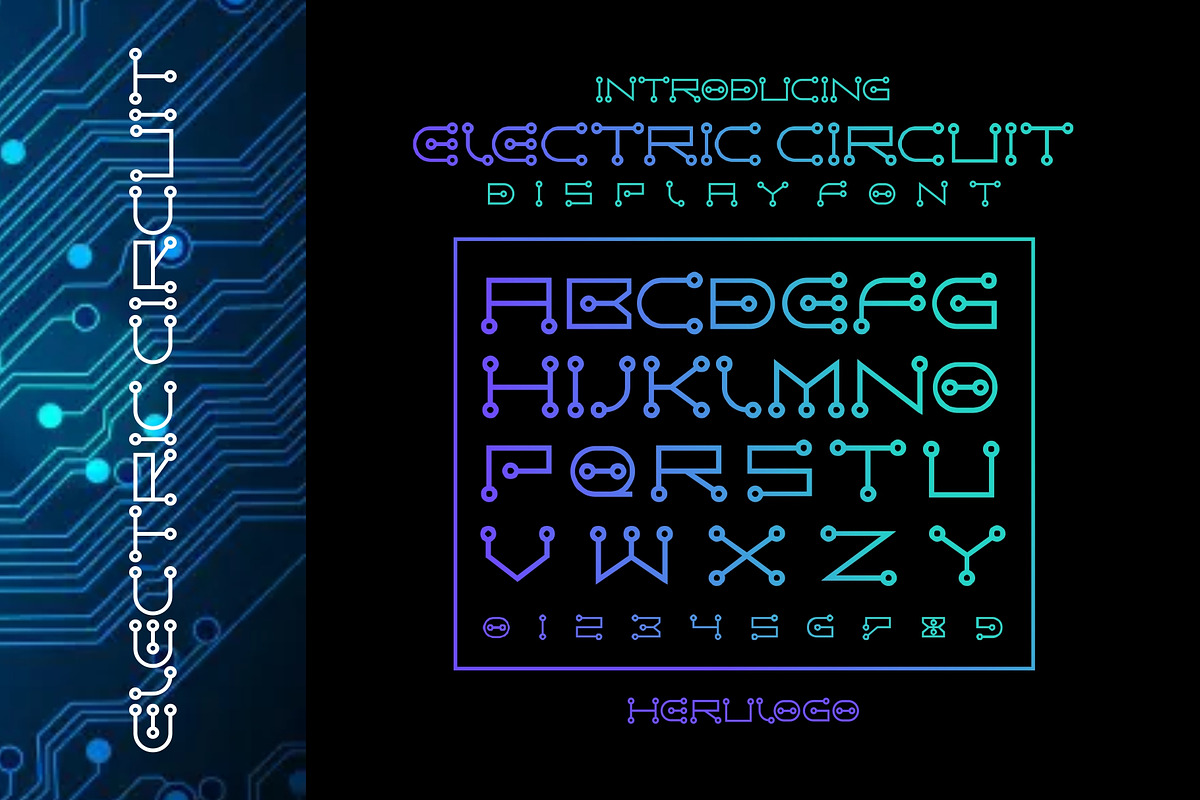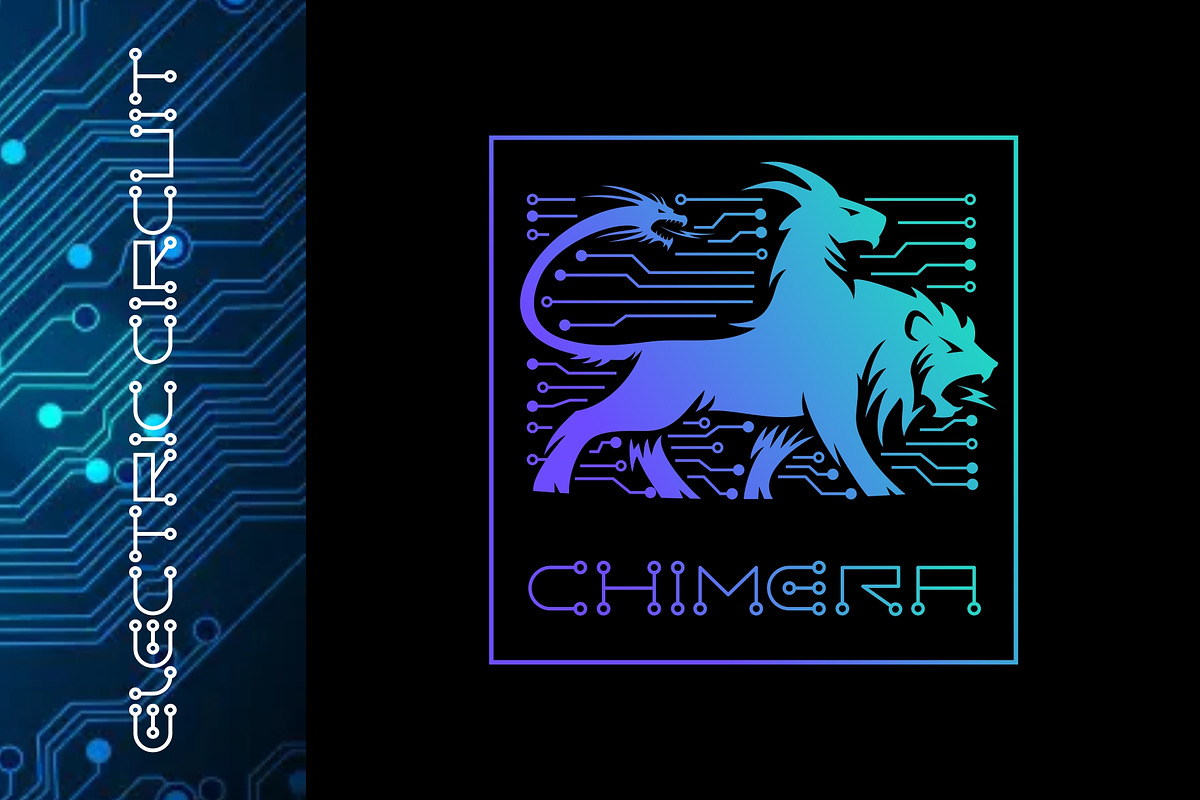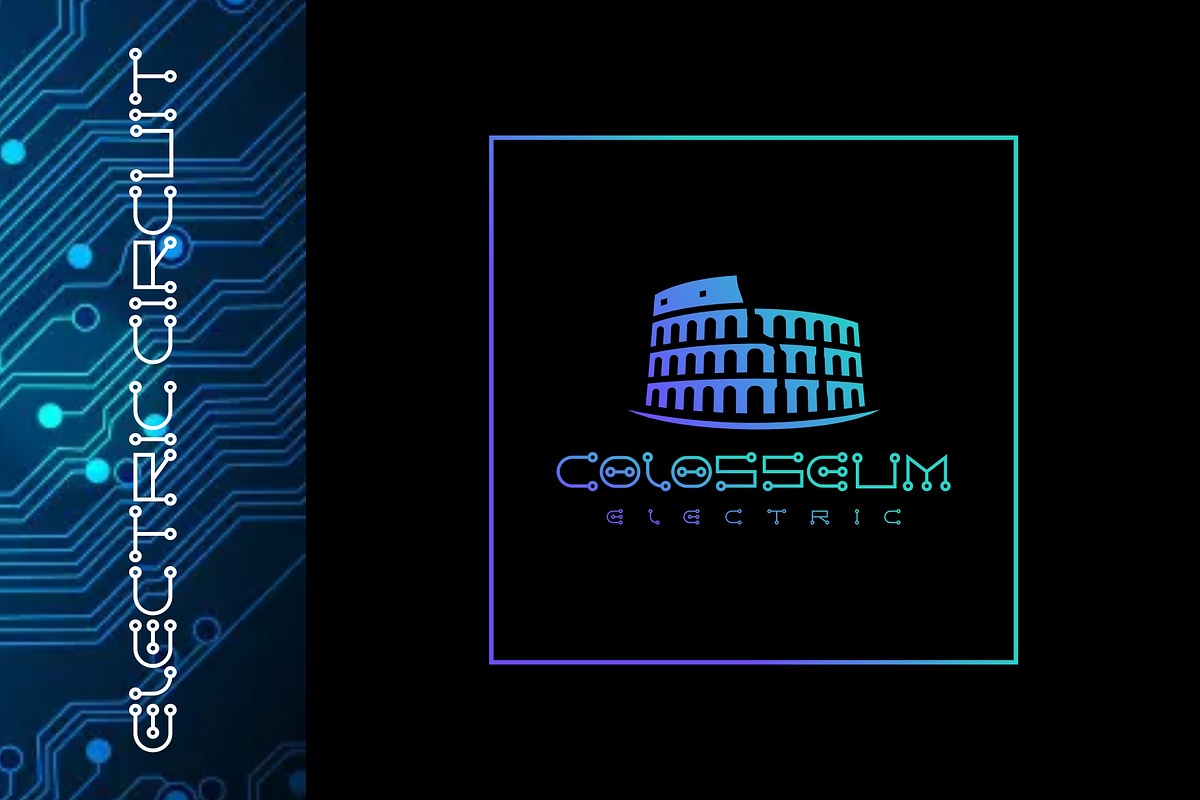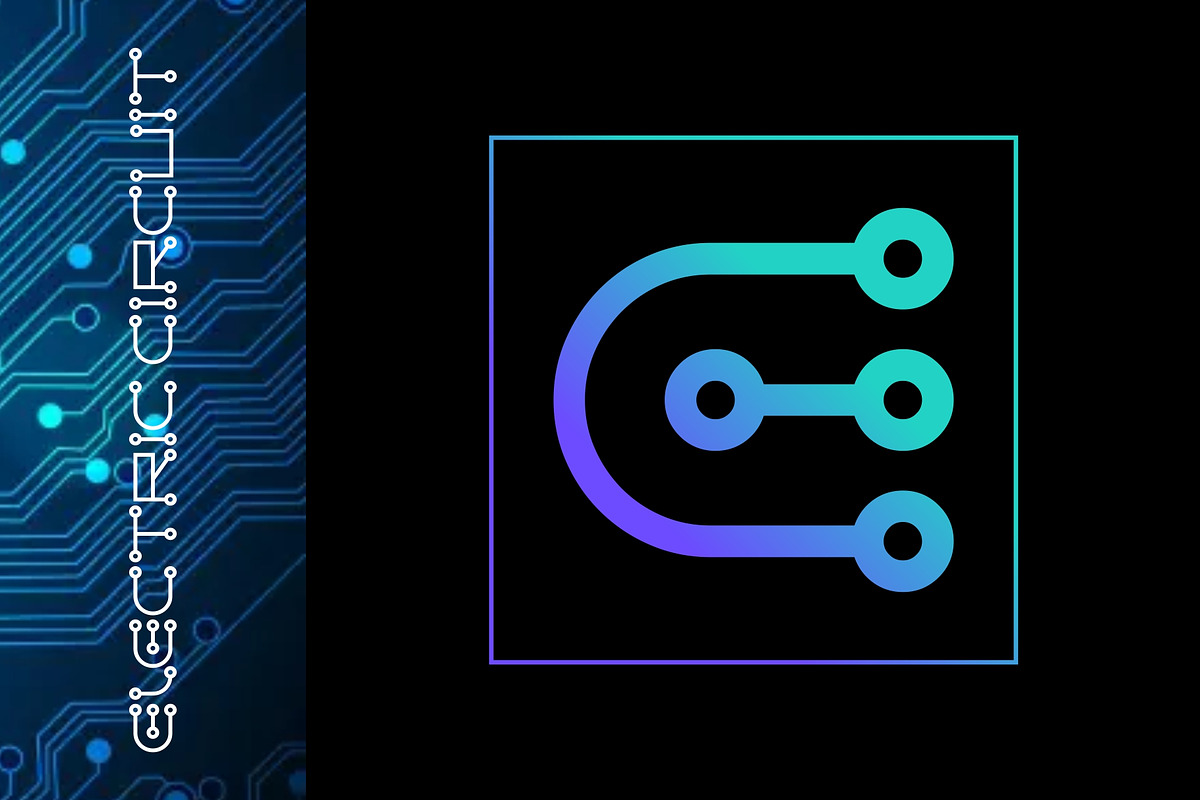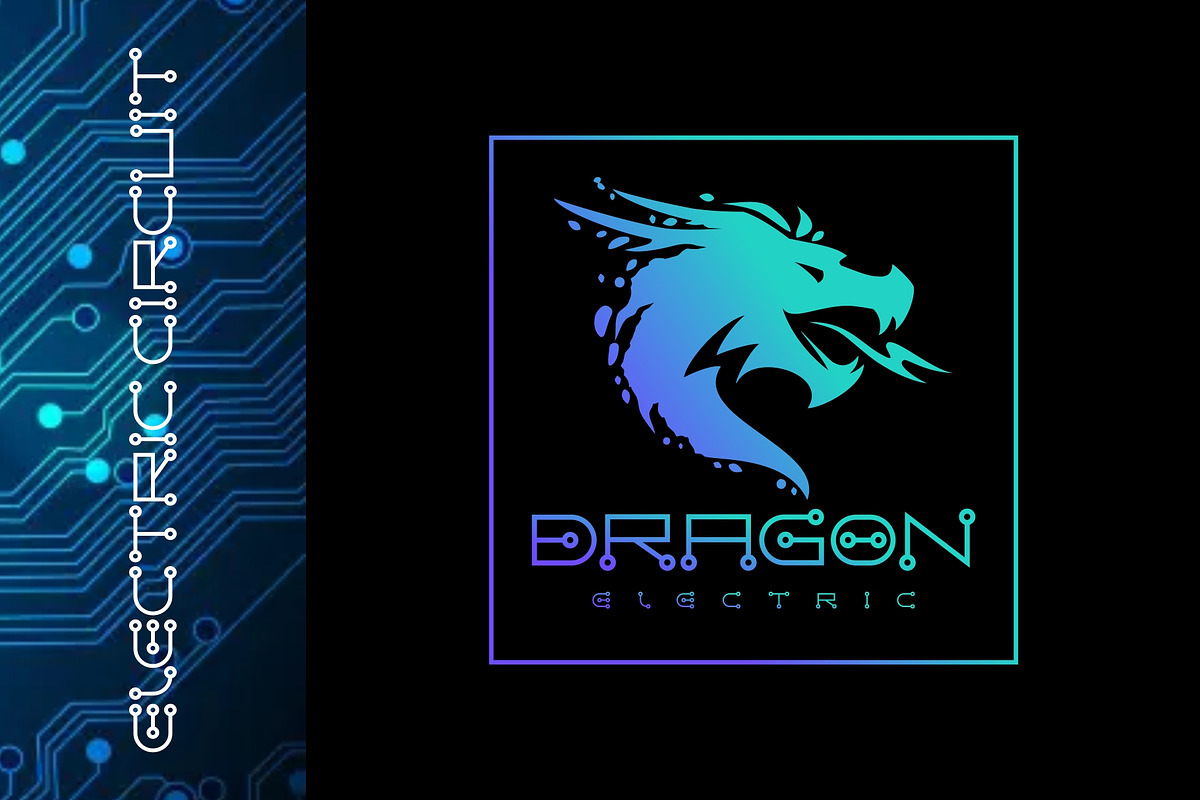
Circuit Electric
The Electric Circuit font has a very distinct "high-tech" energy. This font is a futuristic display font inspired by the intricate pathways of a printed circuit board (PCB). It features a unique, monolinear design where every letterform is constructed using geometric lines and terminal nodes (small circles), mimicking electrical connections.